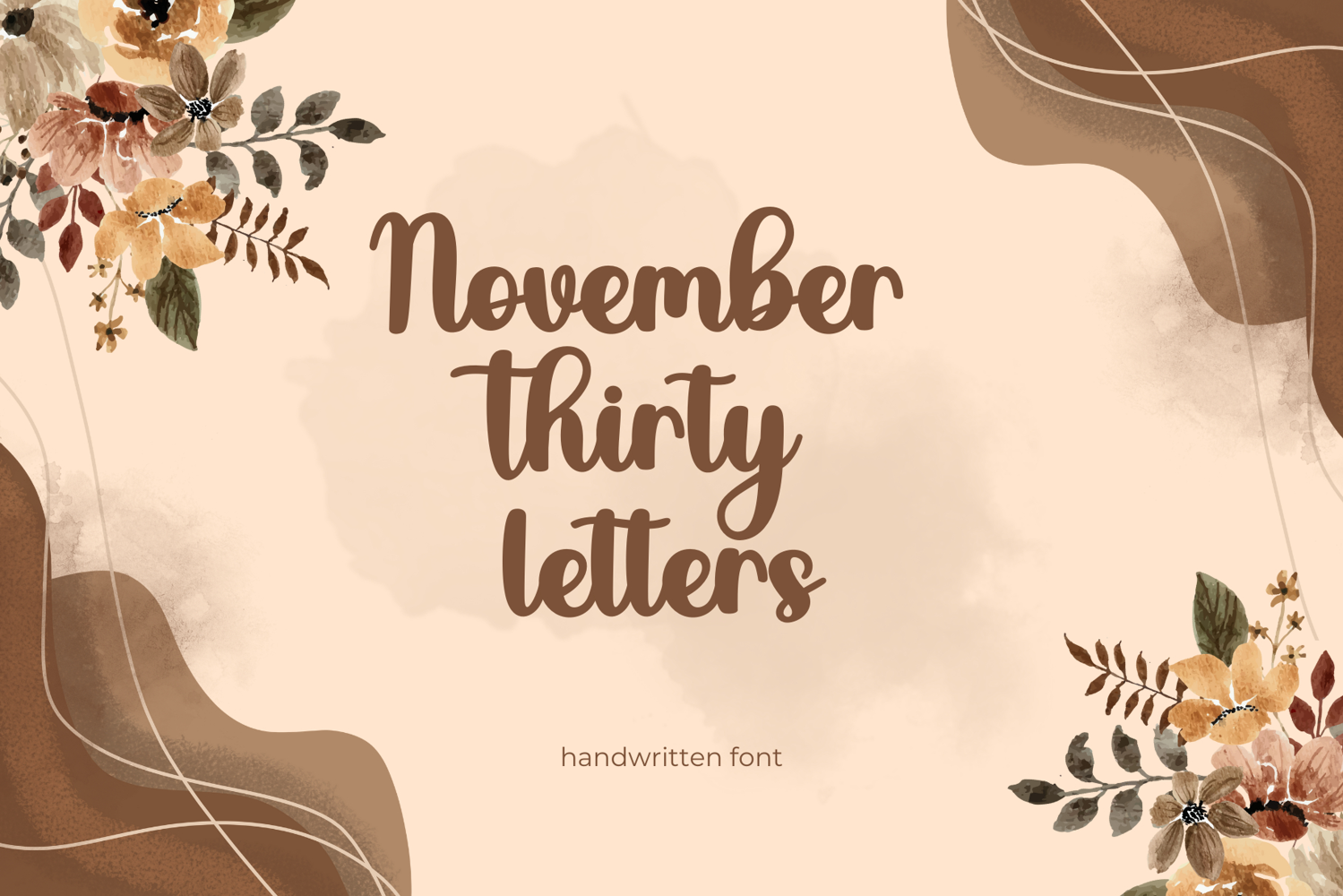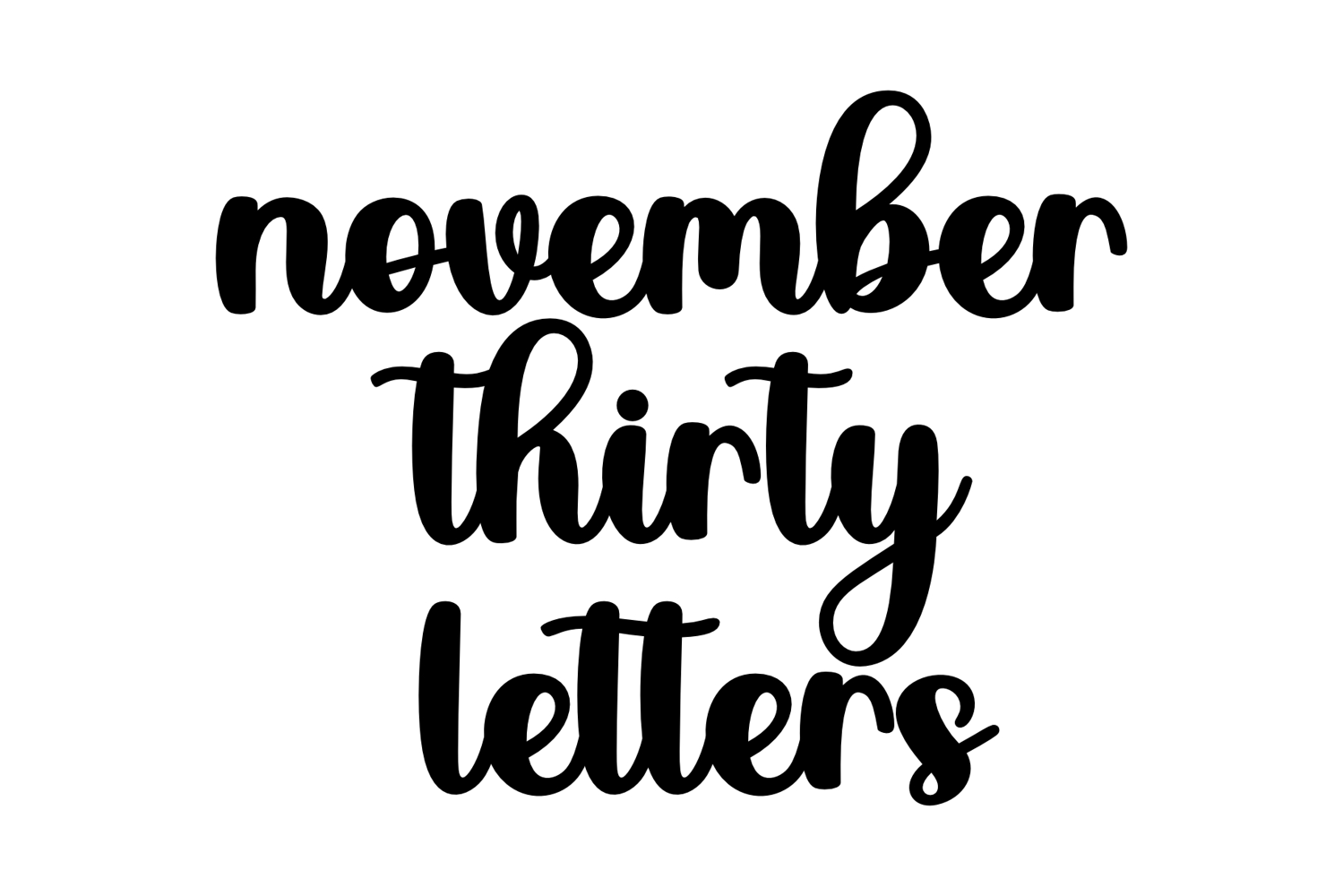
november thirty letters
NovemberThirtyLetters
November Thirty Letters is a warm and friendly handwritten font designed with smooth curves, rounded edges, and a cheerful special touch. The preview showcases the words november, thirty, and letters in thick, expressive strokes that create a welcoming and modern handwritten feel.
The font’s chunky script style gives it a cozy and approachable personality—perfect for seasonal designs, planners, quotes, branding, product labels, social media posts, greeting cards, and creative projects that need a handmade charm.
Let November Thirty Letters bring bold simplicity and heartfelt character to your designs.